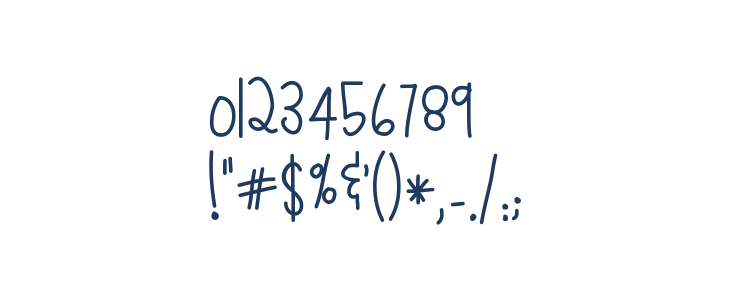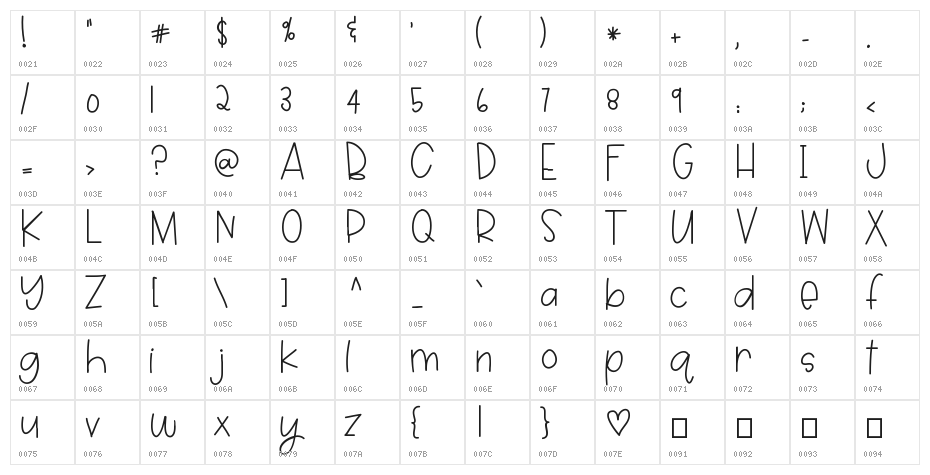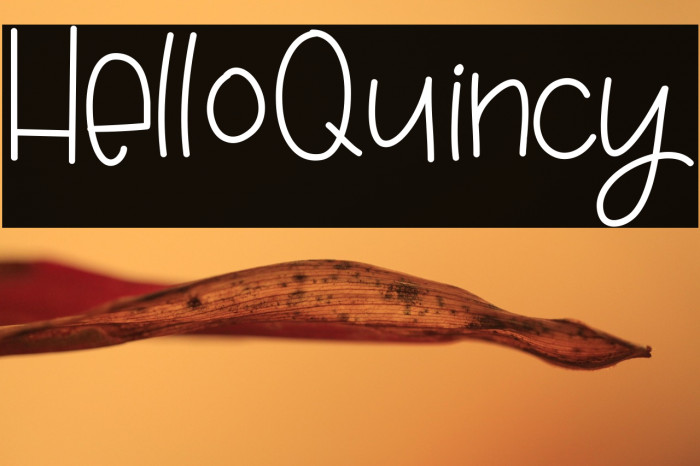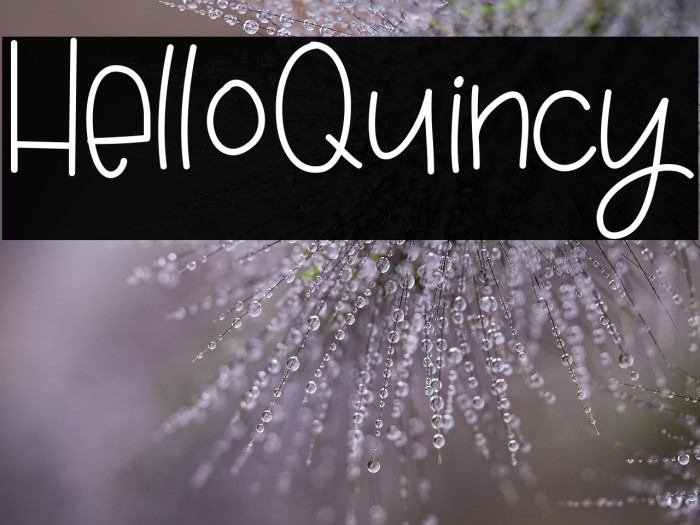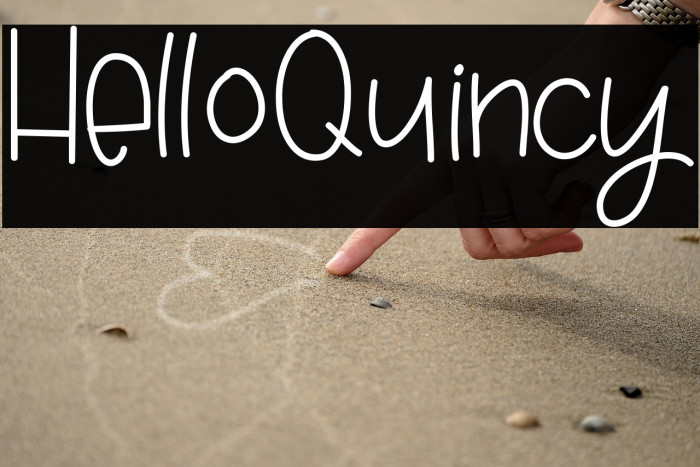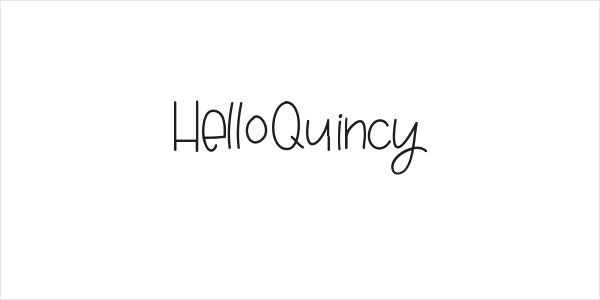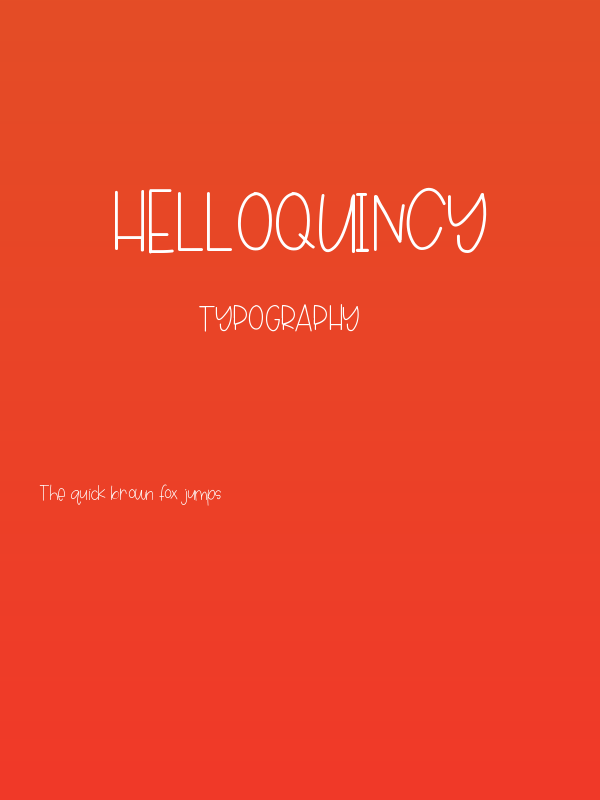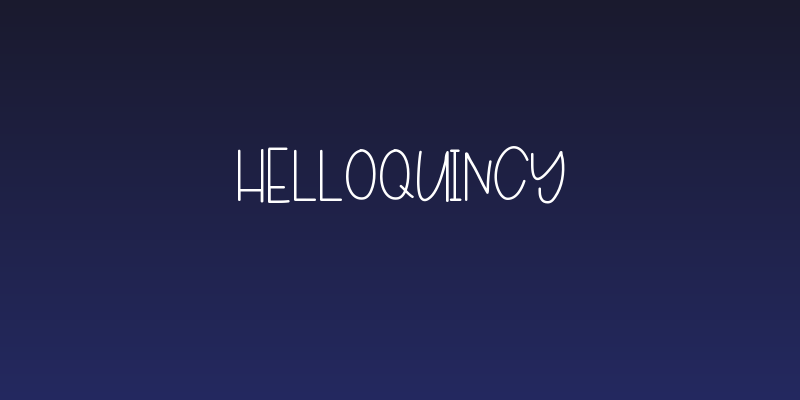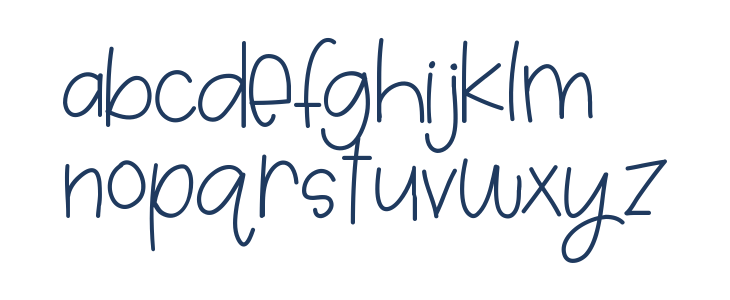
HelloQuincy Font
HelloQuincy Description
This playful and whimsical font features a handwritten style with a casual and friendly appearance. The letters are slightly irregular, adding a personal touch that mimics natural handwriting. The strokes are consistent in width, giving it a uniform look while maintaining a sense of individuality. The font includes both uppercase and lowercase letters, numbers, and a variety of special characters, making it versatile for different uses. Its informal style makes it suitable for projects that require a personal or creative touch.
Overall StyleCasual
Use CaseHeadlines, Informal text, Creative projects
Proposed ProjectsIdeal for greeting cards, children's books, personal blogs, and creative branding.